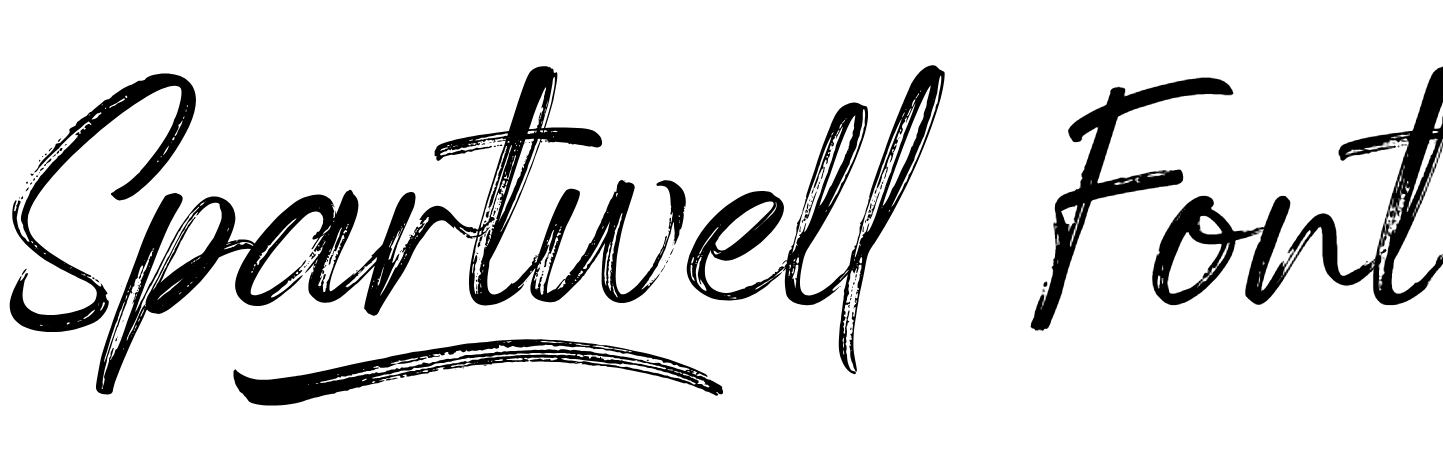
Spartwell
Spartwell is a script font created by Riyadh Rahman. It has that hand-lettered, flowing feel people look for when regular type seems too stiff. It's a free download, and you can try it with your own text in the preview above first.
- Designer: Riyadh Rahman
- OpenType features: Ligatures and swashes
- Extra characters: 33 copy-and-paste alternates (Private Use Area)
What You Can Type With Spartwell
With complete upper and lowercase letters and all ten digits, Spartwell is ready for real wording, not just a single headline. Common punctuation such as &, !, ? and @ is included as well. It also has the accented letters you need for Spanish, French, German, Portuguese and Italian.
How to Use the Alternate Letters in Spartwell
Where Spartwell Works Best
Designers usually reach for fonts like Spartwell when they're making wedding invitations, logos and signature-style headings. Its lowercase letters are small compared to the capitals, so set it a size or two bigger than usual. Script fonts read best in short bursts, so keep it to names, titles and one-line quotes. Skip all caps: script capitals are drawn to start a word, not to fill one.
Does Spartwell support accented letters?
Yes. Spartwell includes the accented letters needed for Spanish, French, German, Portuguese and Italian, so it works for more than just English.